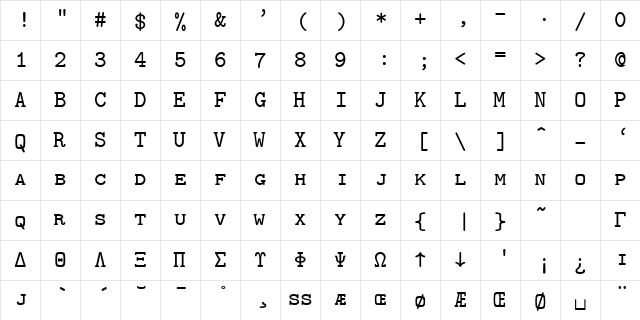
cmtcsc10 Regular
cmtcsc10 takes a measured approach to typography — its balanced proportions and neutral character make it a reliable workhorse for both digital and print work.